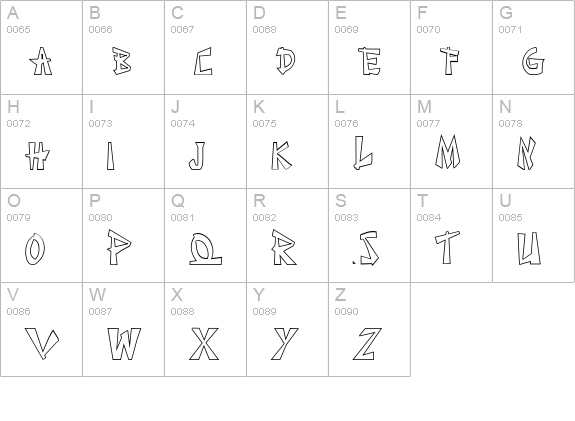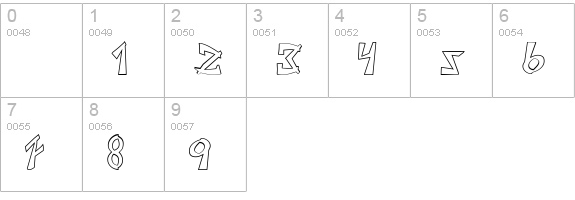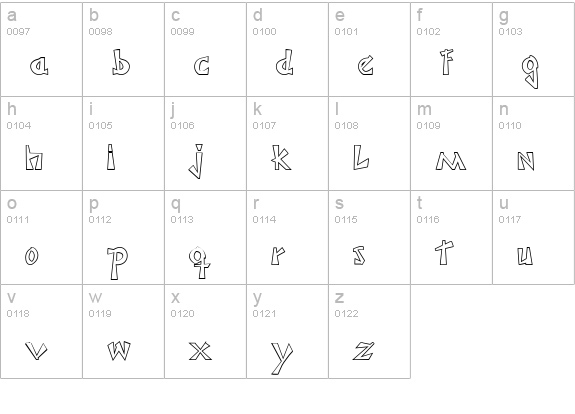
JaponesaOutline Font Details
JaponesaOutline is a beautifully crafted font that combines elegance with a touch of Japanese influence. Its delicate strokes and unique design make it perfect for adding a touch of sophistication to any project. Whether you're creating a logo, designing a website, or crafting a stylish invitation, JaponesaOutline will elevate your work to a whole new level. This font stands out not only for its stunning aesthetics, but also for its versatility. Its clean lines and minimalist style make it suitable for a wide range of design applications, from modern and minimalist to bold and expressive. JaponesaOutline effortlessly captures attention and adds a sense of refinement to any composition. The best part? JaponesaOutline is available for free! That's right, you can freely download this font at FontsMarket.com. We believe that great design should be accessible to all, and JaponesaOutline is no exception. Say goodbye to expensive font licenses and hello to creative freedom. With JaponesaOutline, you have the power to transform your projects into works of art. Its timeless appeal and eye-catching details will make your designs stand out from the crowd. So why wait? Download JaponesaOutline today and unleash your creativity with this stunning font. It's time to make a statement and leave a lasting impression.